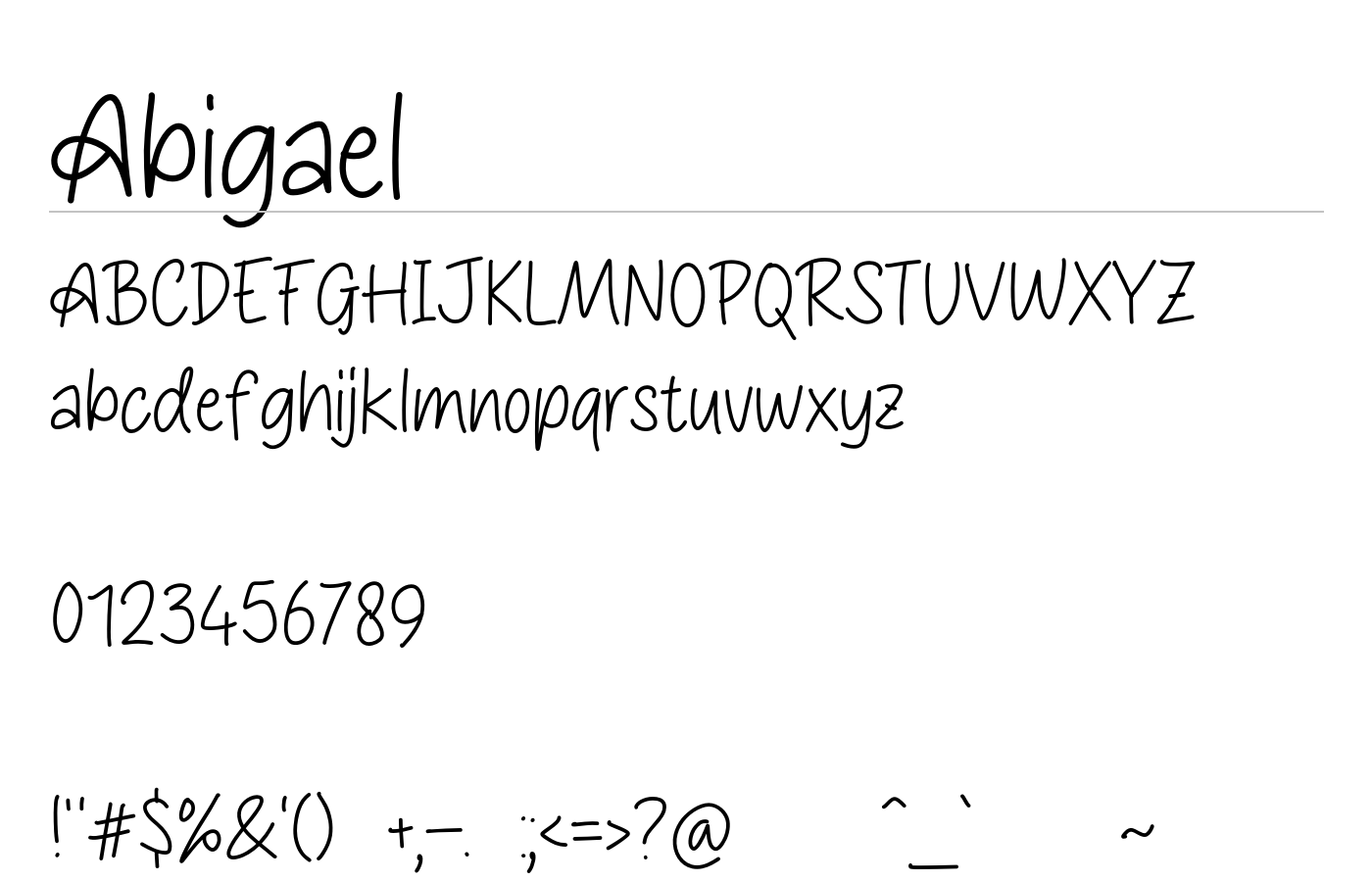
Abigael is a playful and casual handwritten sans serif font featuring slightly irregular, single-story letterforms with a friendly, informal feel. Its light weight and airy spacing make it ideal for personal projects, children’s books, or creative headlines that require a warm, approachable vibe. This font works best where a relaxed, human touch is desired without sacrificing readability.
Abigael Font
About Abigael Font